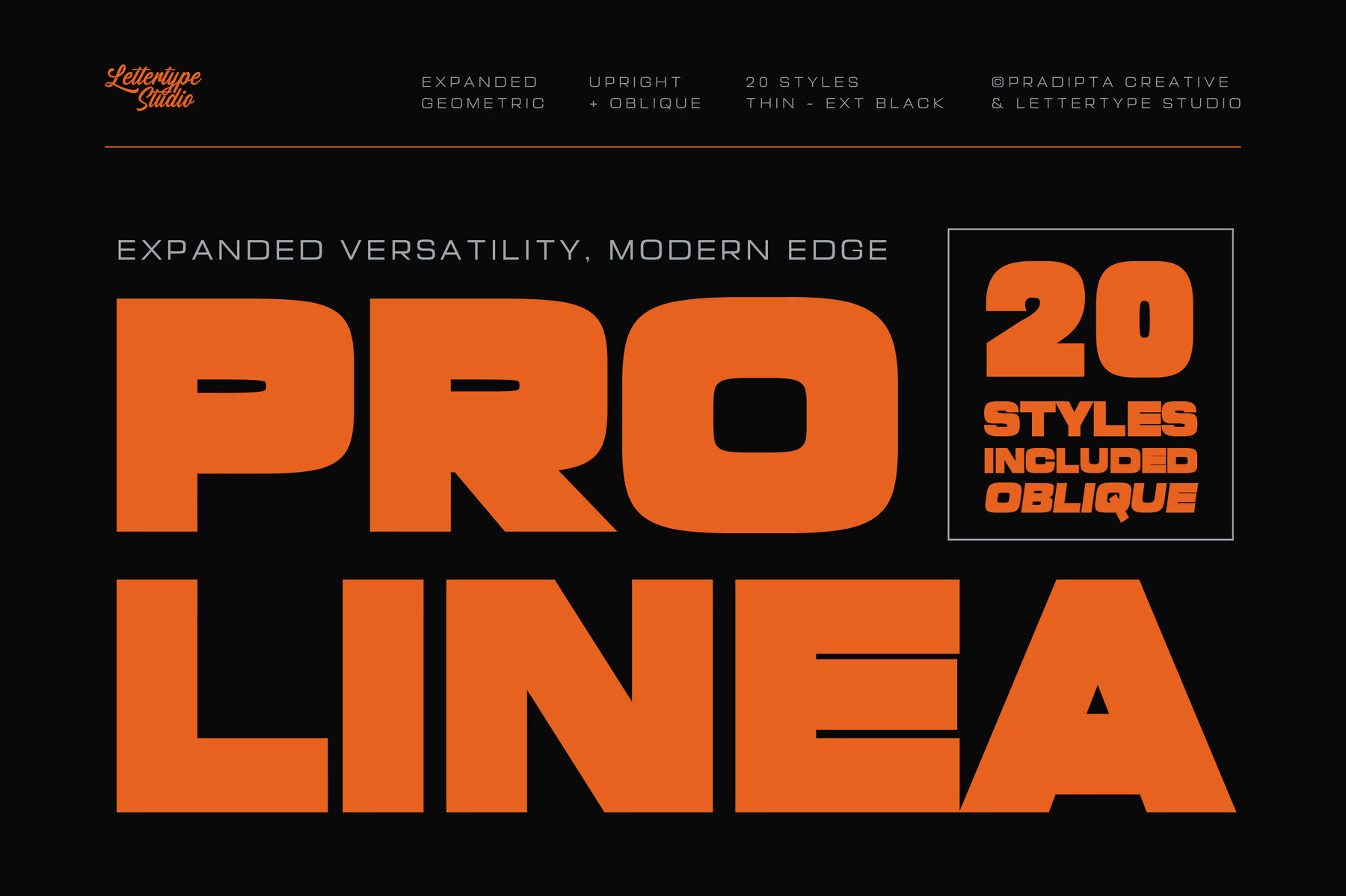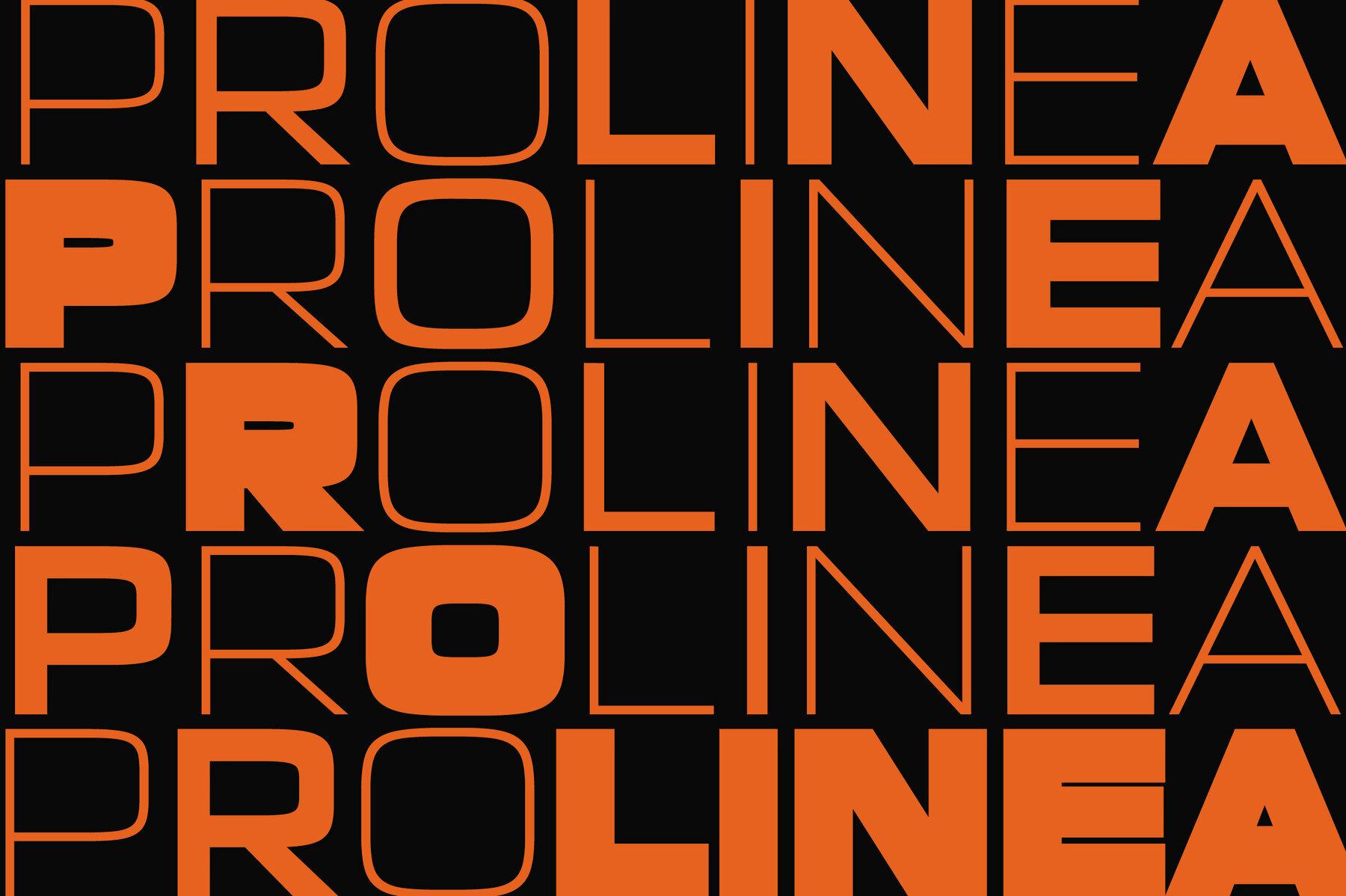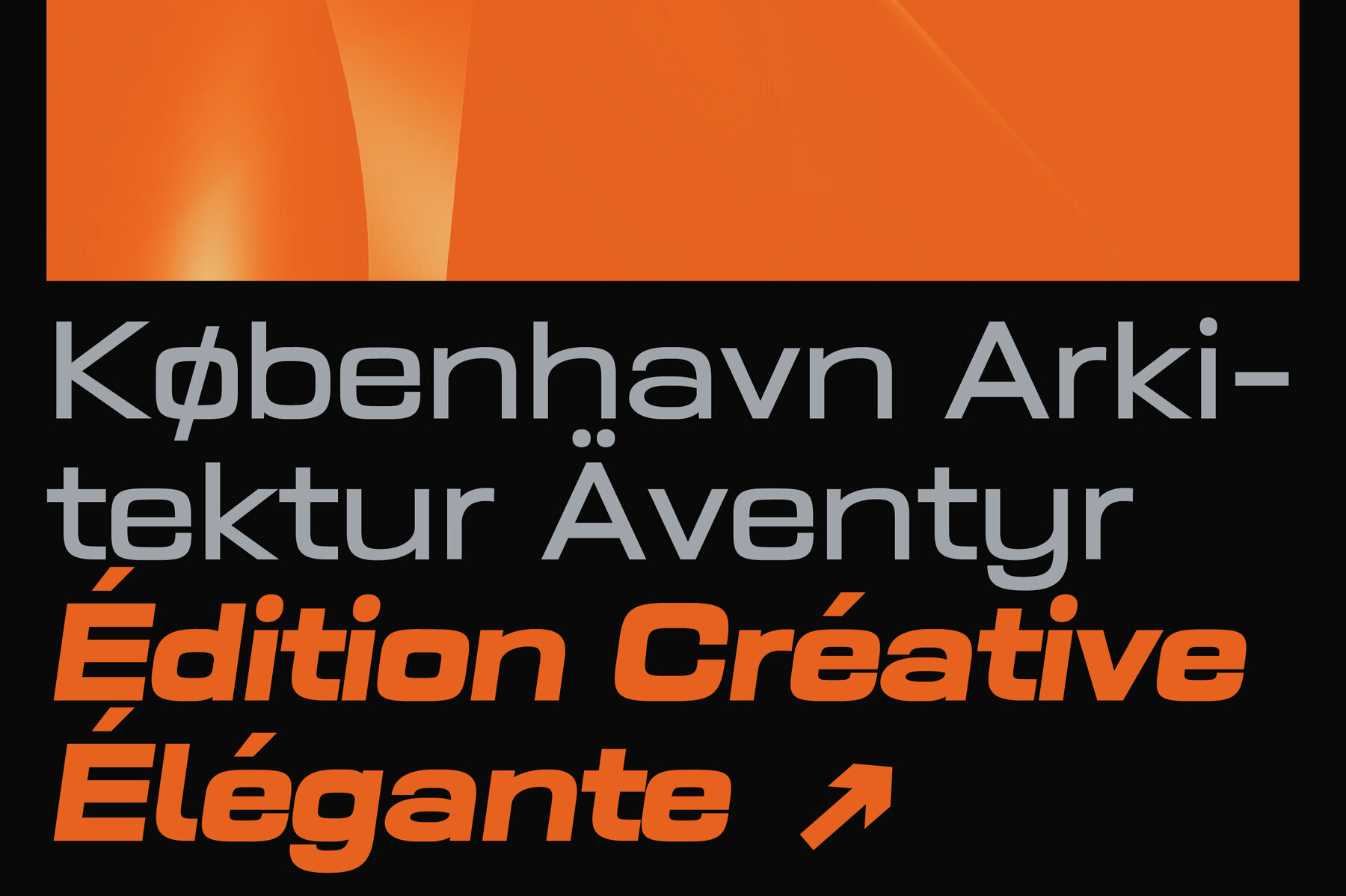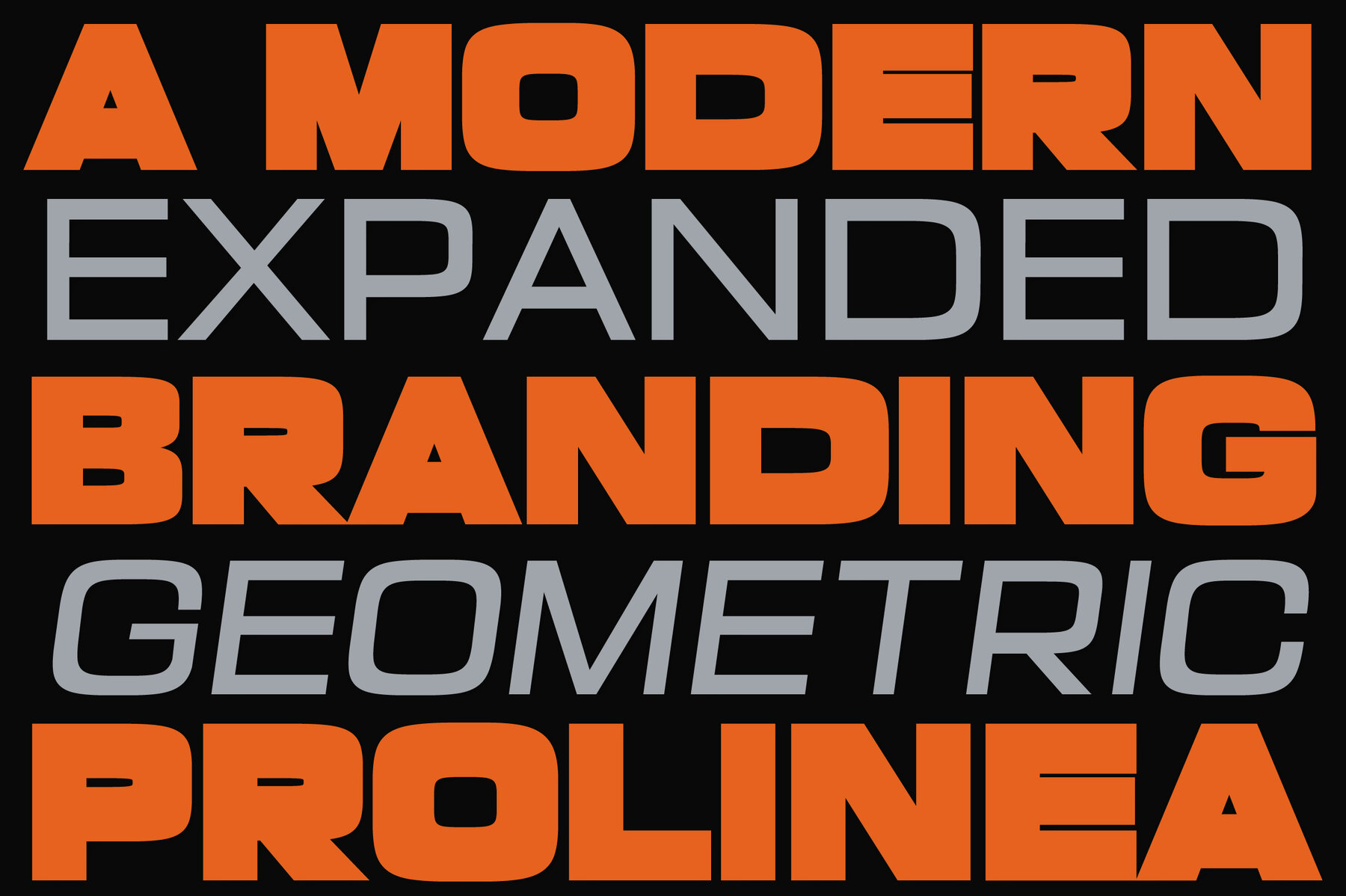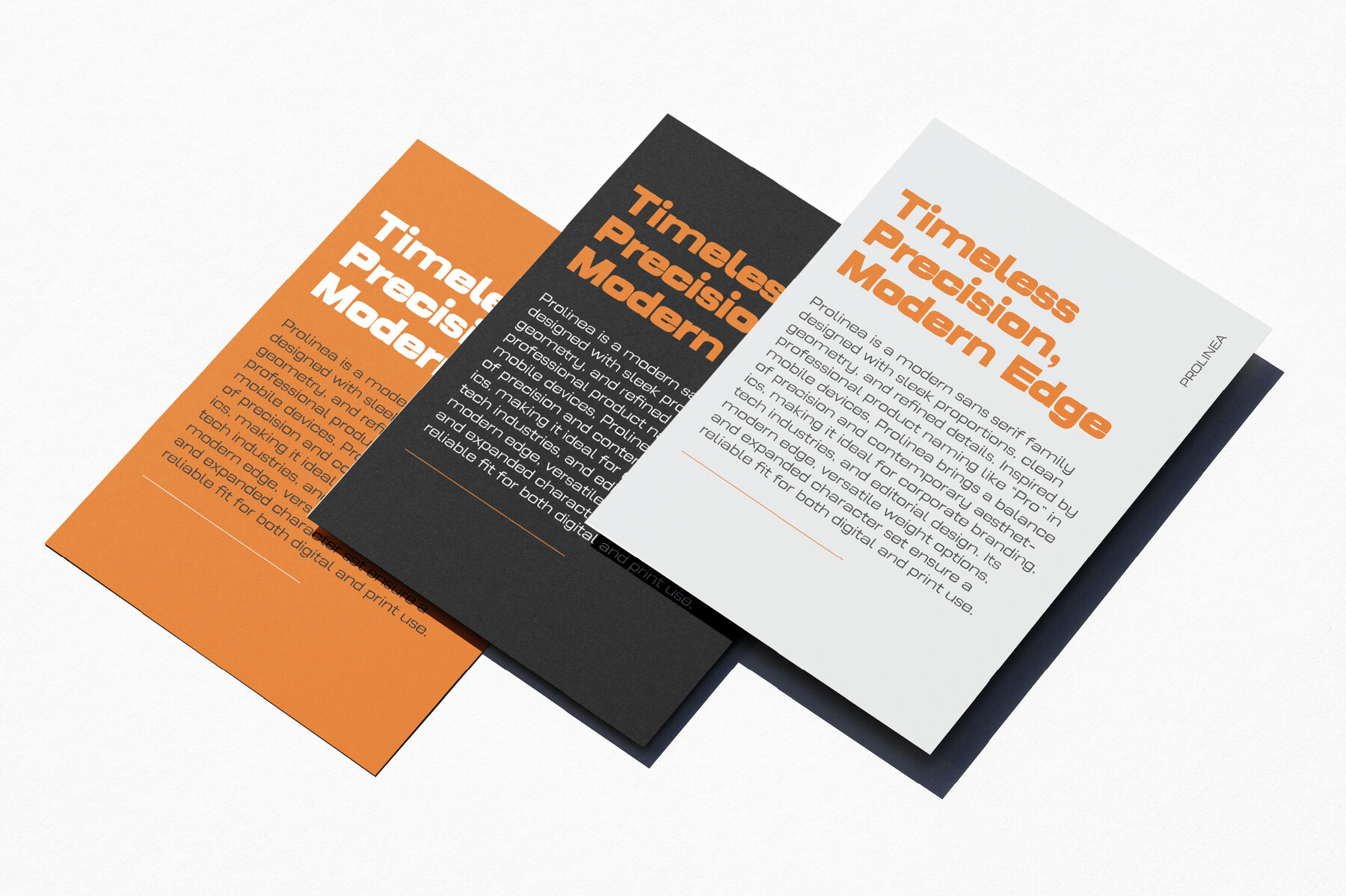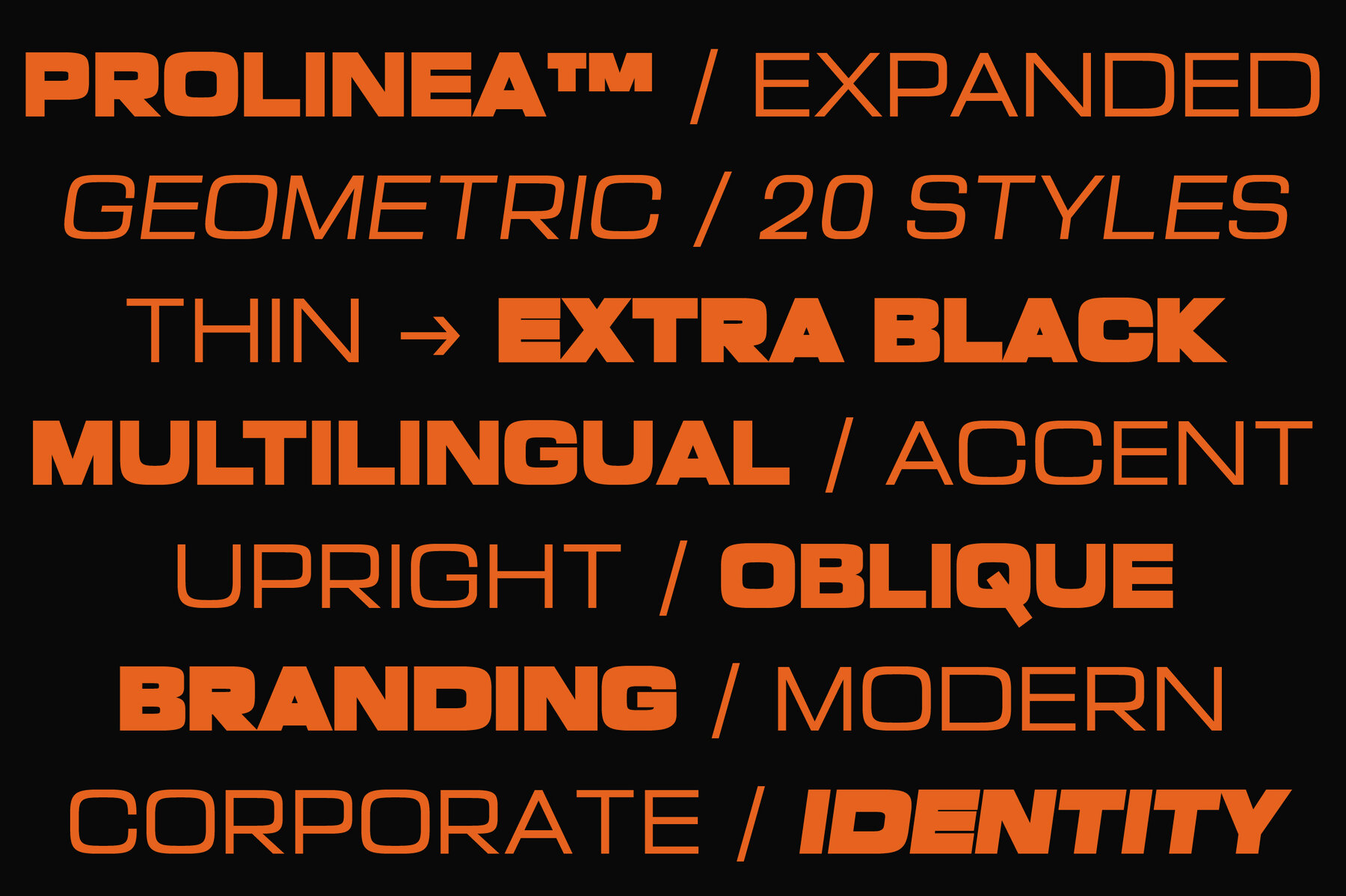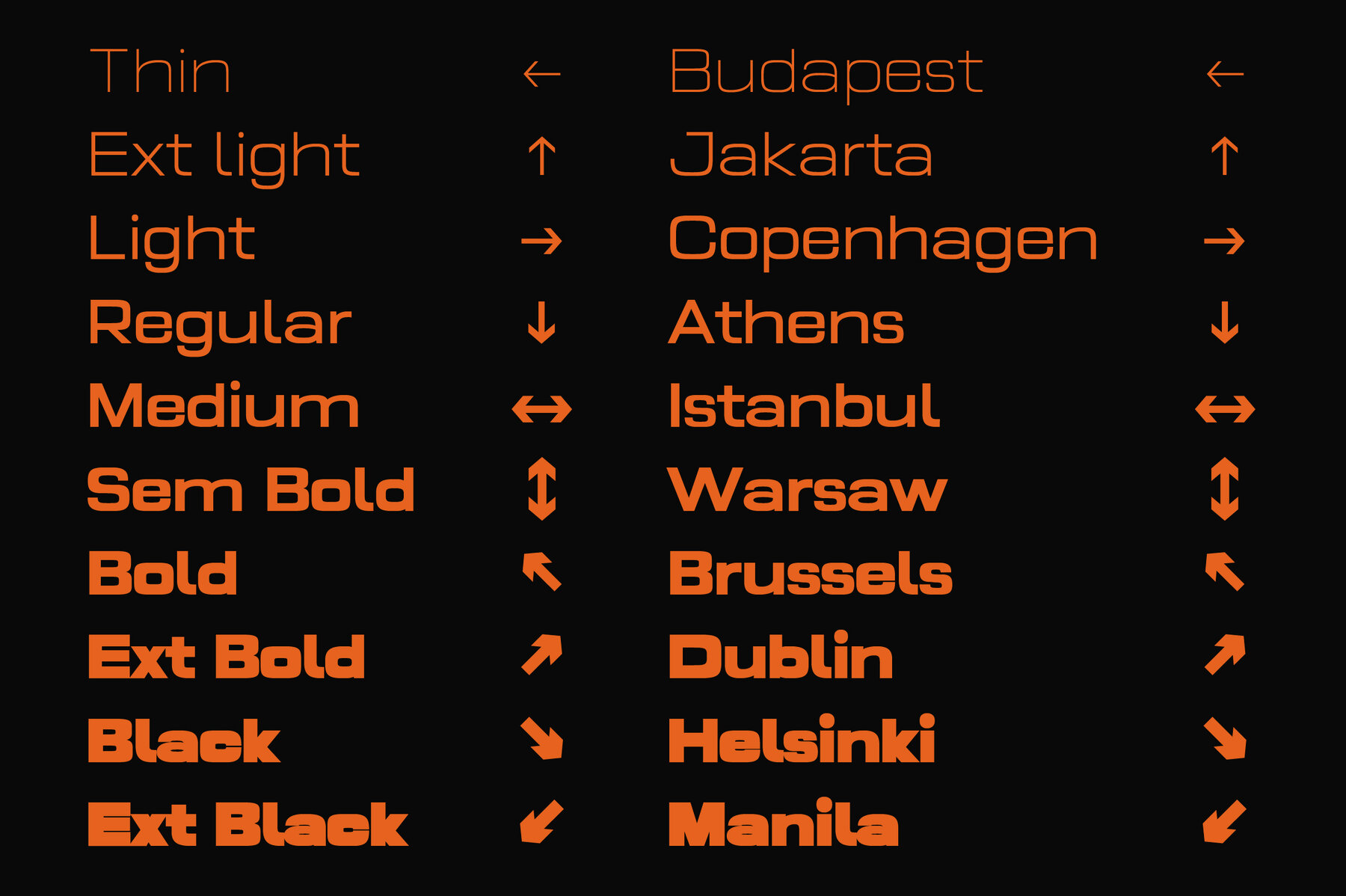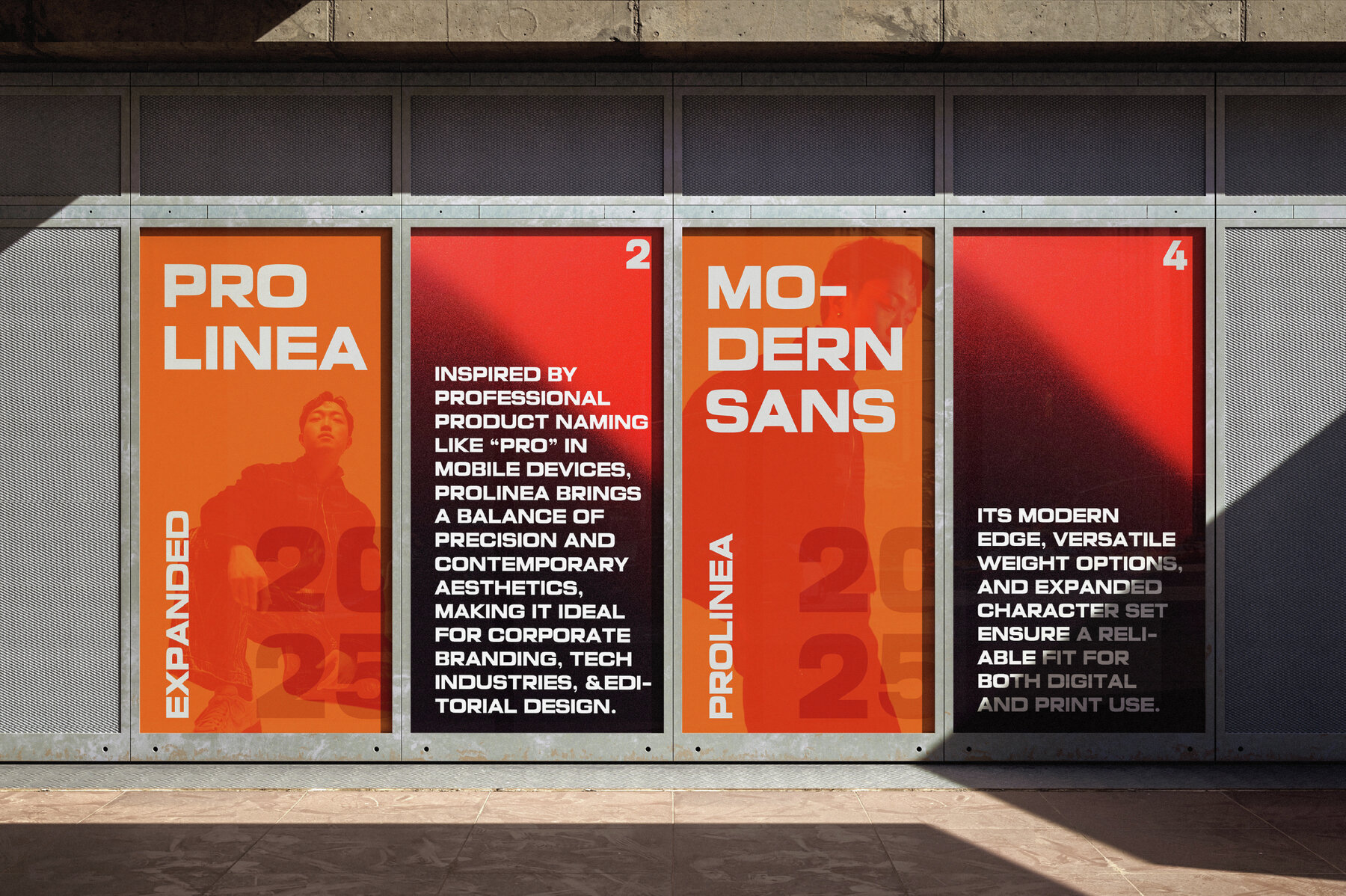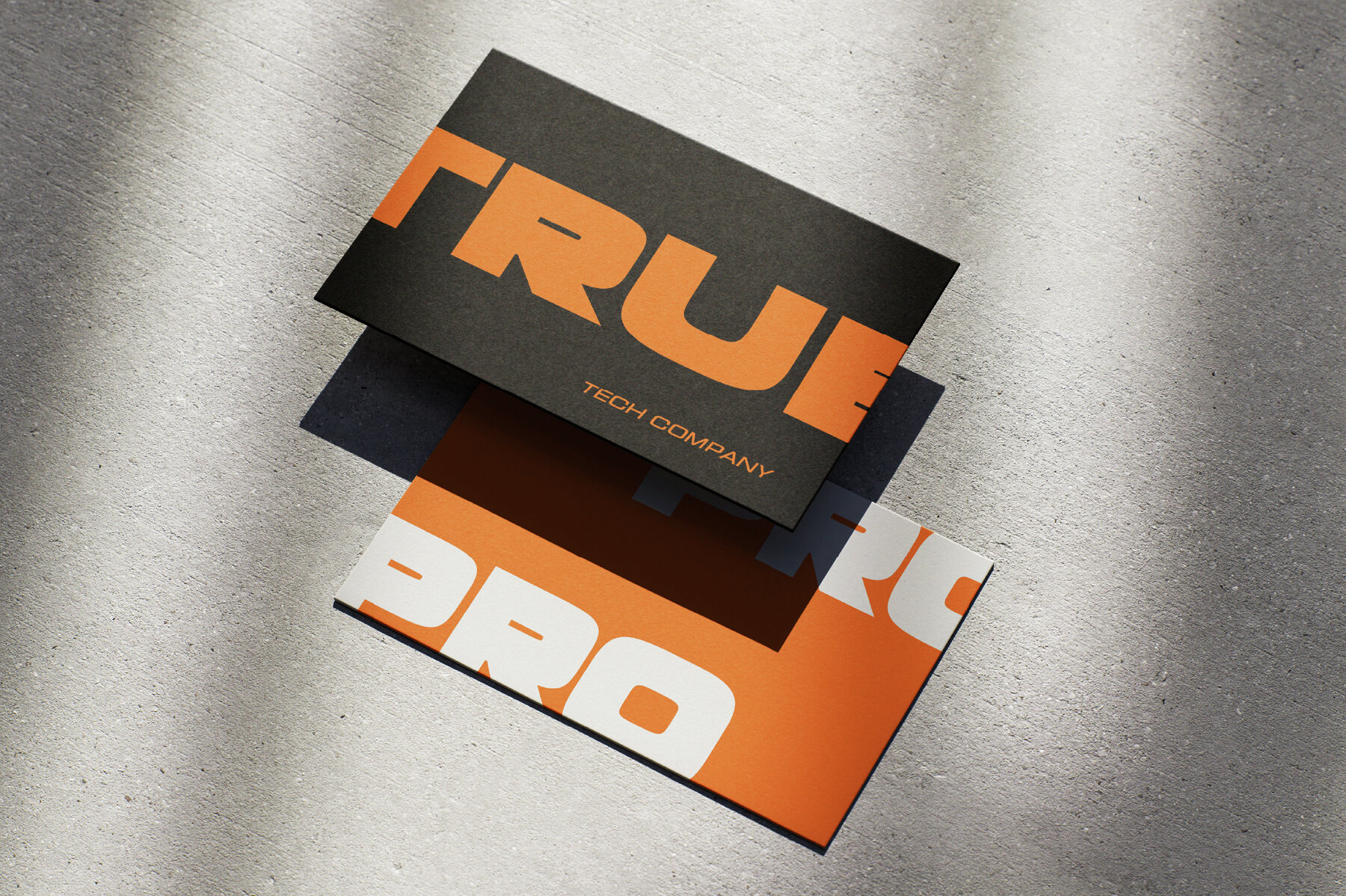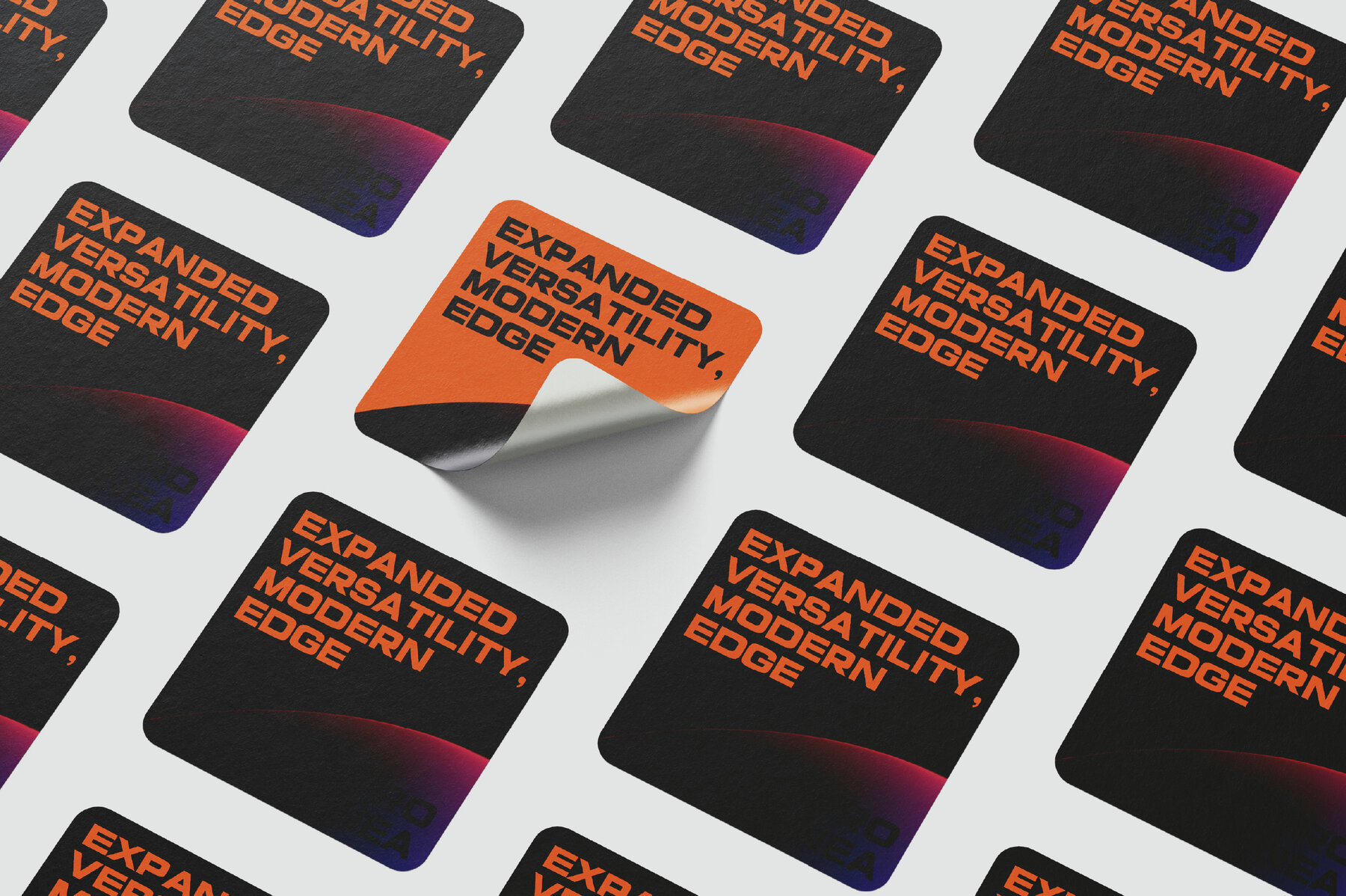
Prolinea Font
Discover Prolinea, a sleek sans serif typeface tailored for the discerning designer. Its seamless blend of clean geometry and precise details offers a contemporary look suitable for corporate branding, the tech world, and editorial design. Prolinea draws inspiration from the "Pro" names in mobile devices, bringing sophistication and versatility to all your projects. With a range of weights and an expanded character set, Prolinea effortlessly accommodates digital and print applications. Its intelligent features, such as thoughtful alternates and ligatures, empower creativity in designing unique logos and striking headlines. Enhanced legibility, multilingual support, and refined intricacies make Prolinea the perfect choice for a stylish and timeless appeal.Prolinea: Modern Sans Serif Excellence